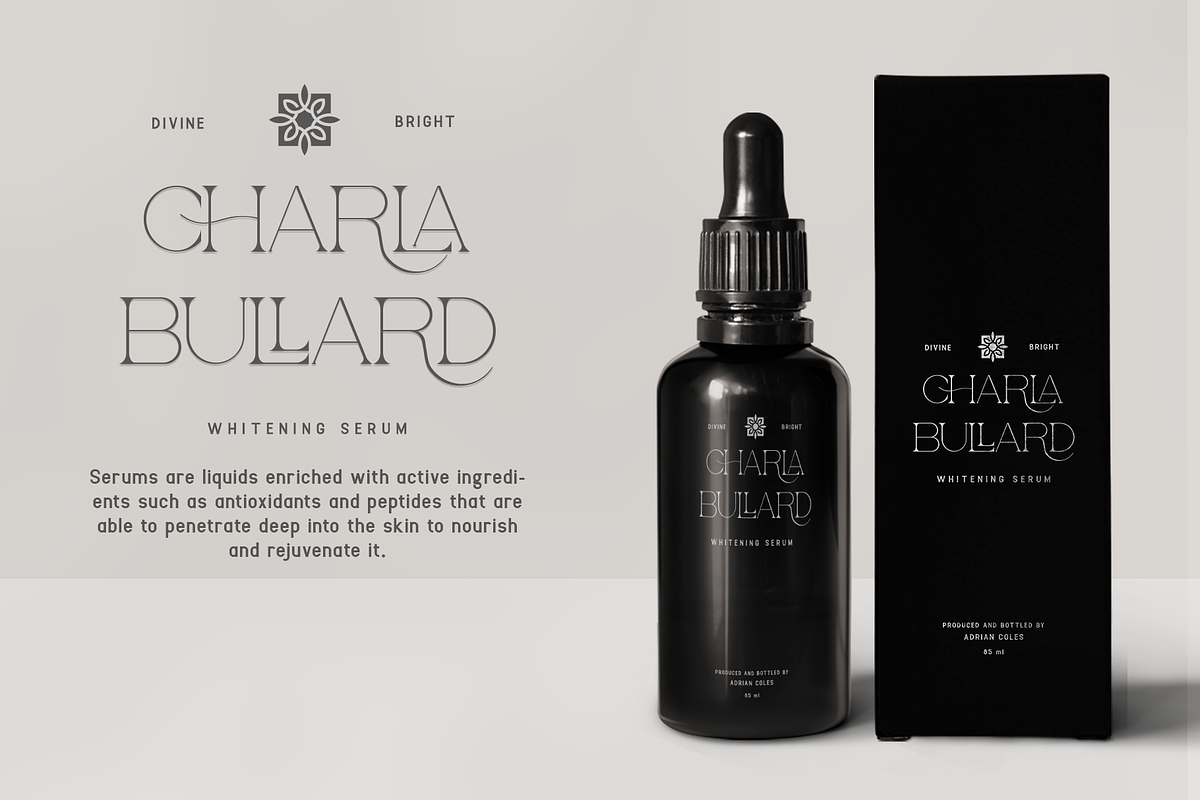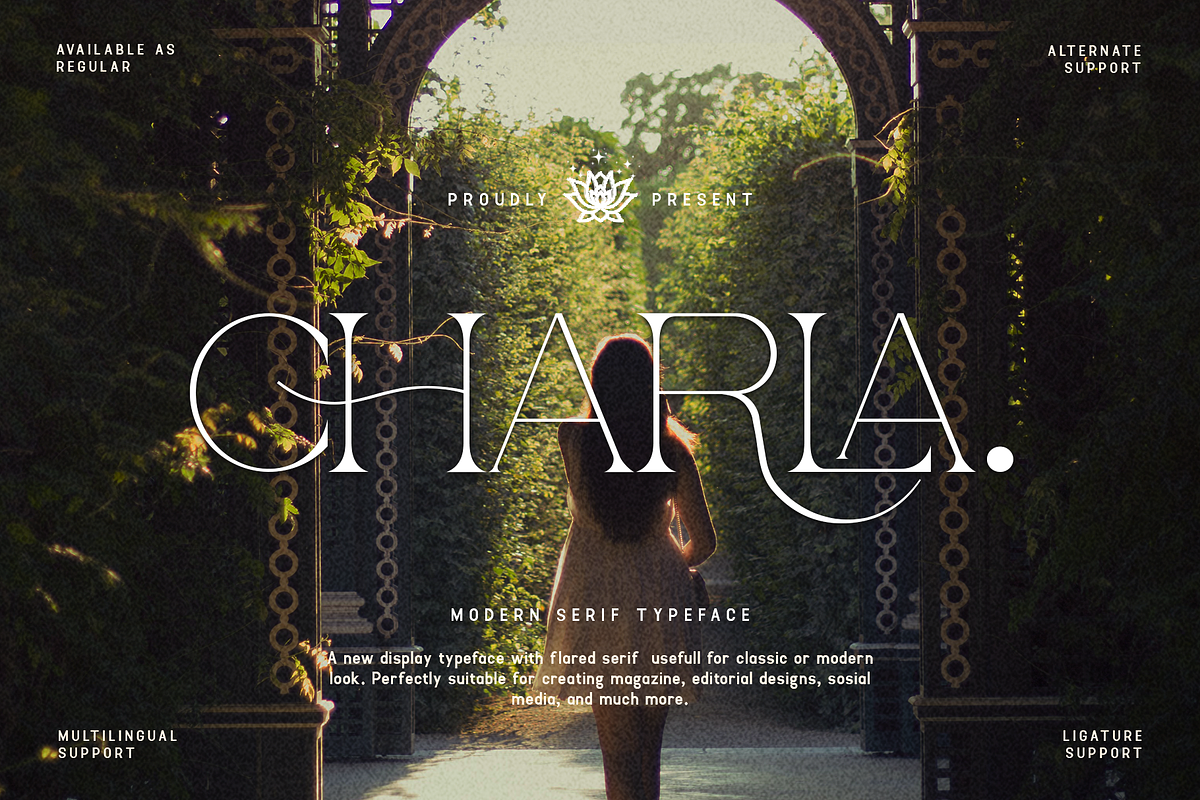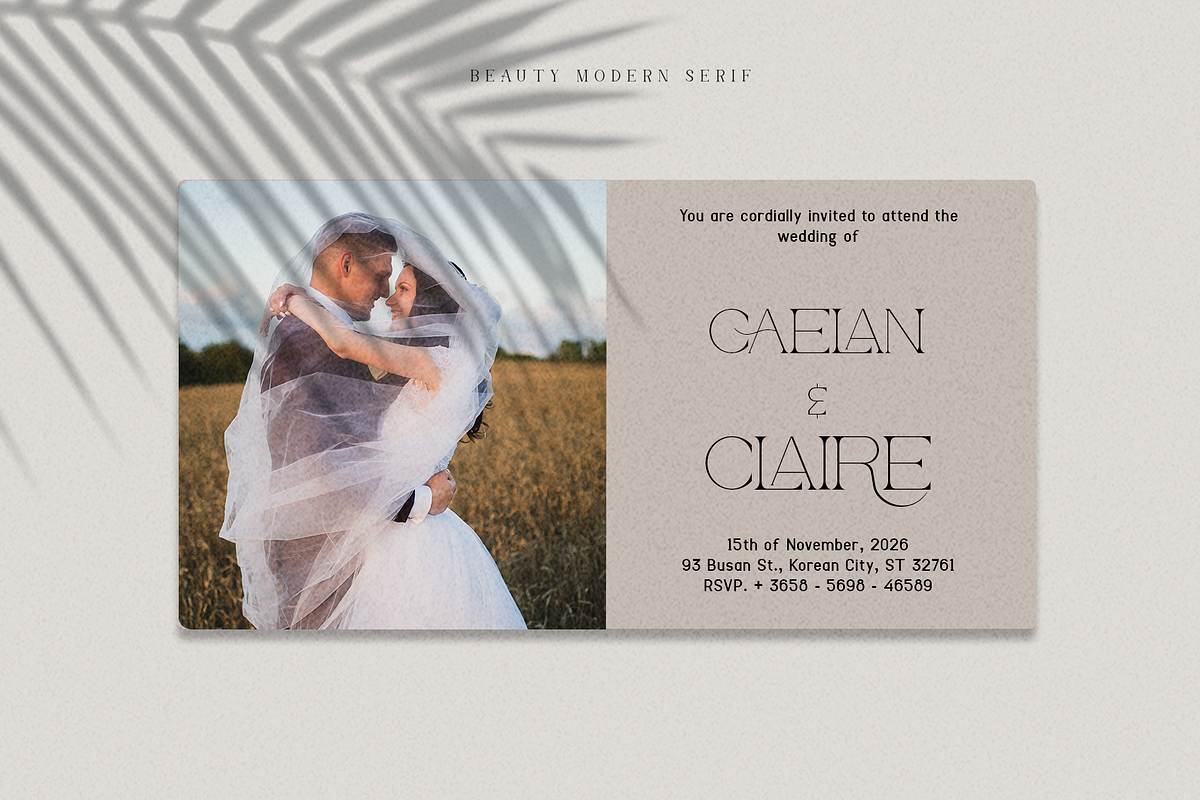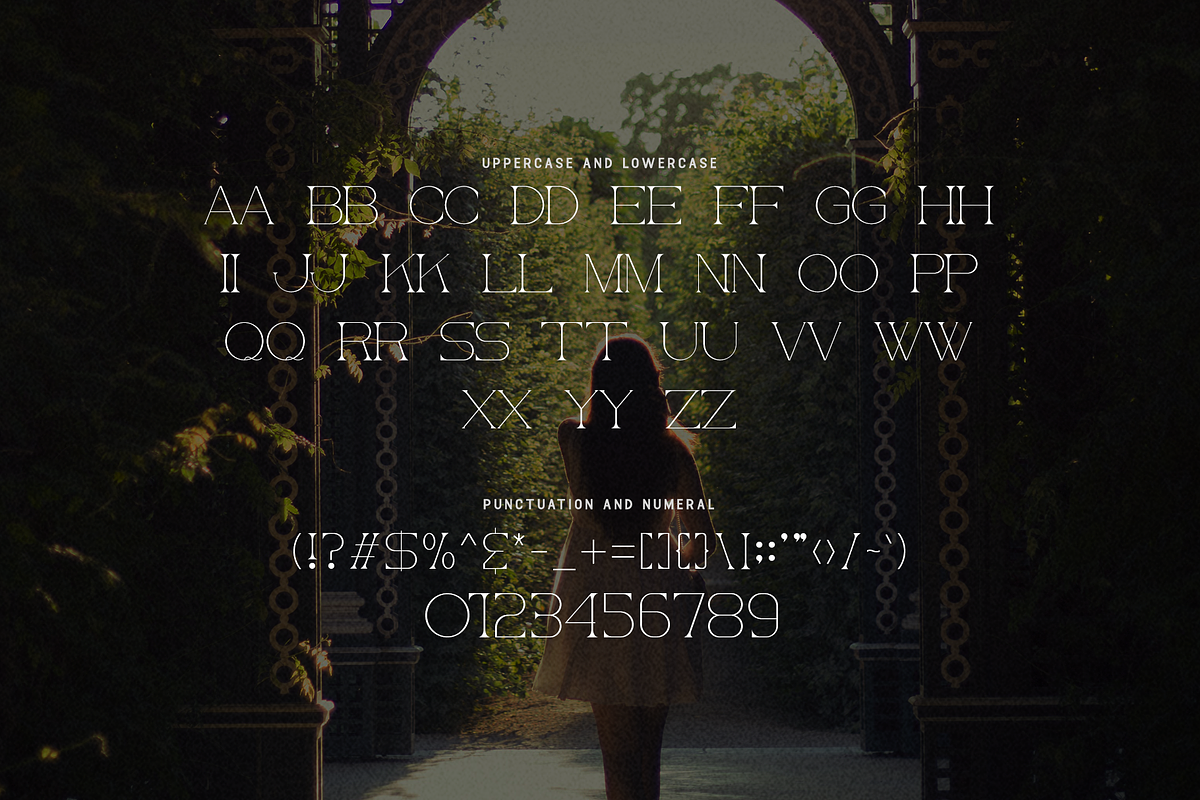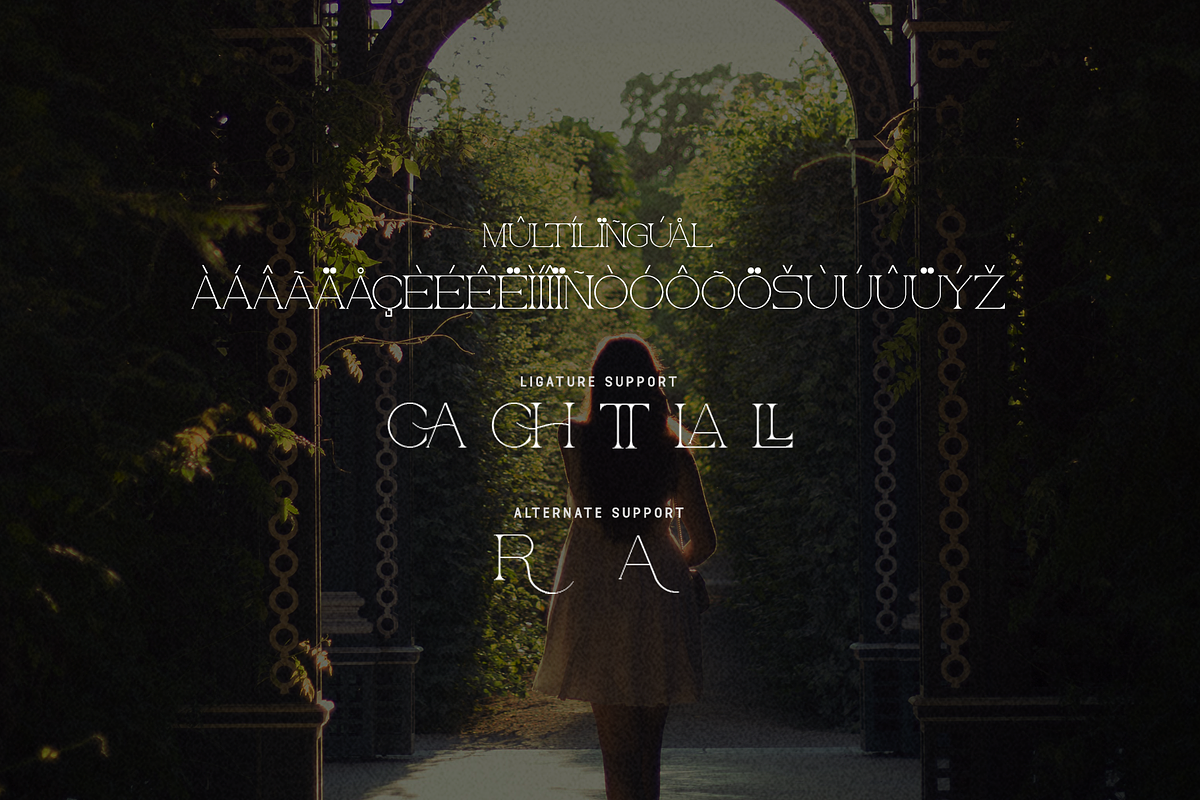
Charla - Modern Serif Typeface
Introducing "Charla," a modern serif typeface that blends timeless elegance with contemporary style. "Charla" is meticulously designed to provide your projects with a sophisticated and polished look, making it perfect for a wide range of design applications.
With its refined serifs and balanced letterforms, "Charla" is ideal for high-end branding, editorial designs, websites, invitations, and more. This typeface includes a full set of uppercase and lowercase letters, numerals, punctuation, and supports multiple languages, ensuring versatility and ease of use in various design projects.
The subtle yet distinct characteristics of "Charla" make it stand out, adding a touch of class and professionalism to your work. Whether you're crafting a luxurious logo, an elegant magazine layout, or stylish stationery, "Charla" delivers a modern aesthetic that commands attention.
"Charla" is the perfect choice for designers seeking to create sophisticated and impactful visuals with a modern serif touch.